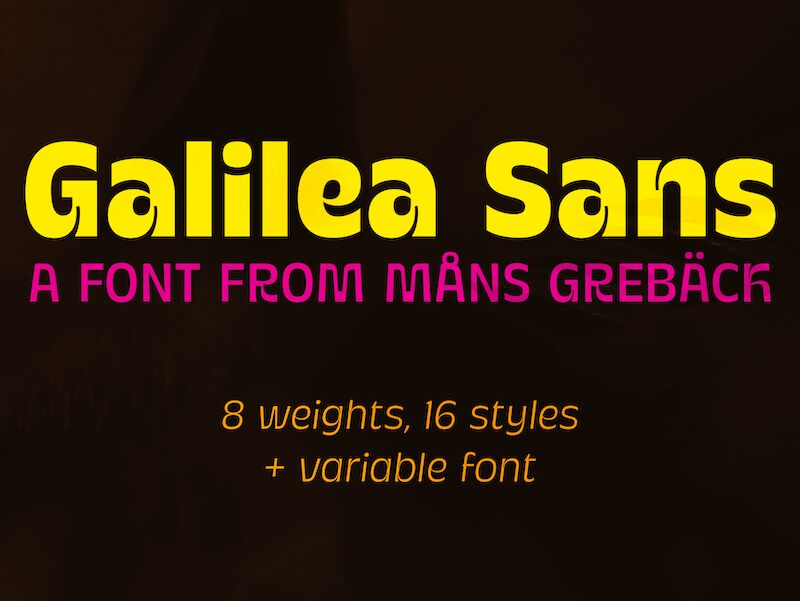
Galilea Sans Variable PERSONAL Thin
Galilea Sans Variable Thin font by Mans Greback is a free sans serif typeface that gives you that elusive mix of ultra-light elegance and real-world legibility. Its hairline strokes, spacious counters, and steady verticals create a calm, breathable texture on the page, so layouts feel polished instead of fragile. The curves stay soft and rounded, which keeps this very thin style from looking cold or mechanical.
Using Galilea Sans Variable Thin, you can bring a refined, weightless look to fashion branding, minimalist posters, editorial spreads, lookbooks, portfolios, and sleek web hero text. This free font shines when you let it stretch across generous margins or sit large on clean backgrounds; pair it with a sturdy geometric sans or a simple serif for supporting text to keep your hierarchy clear and effortless.